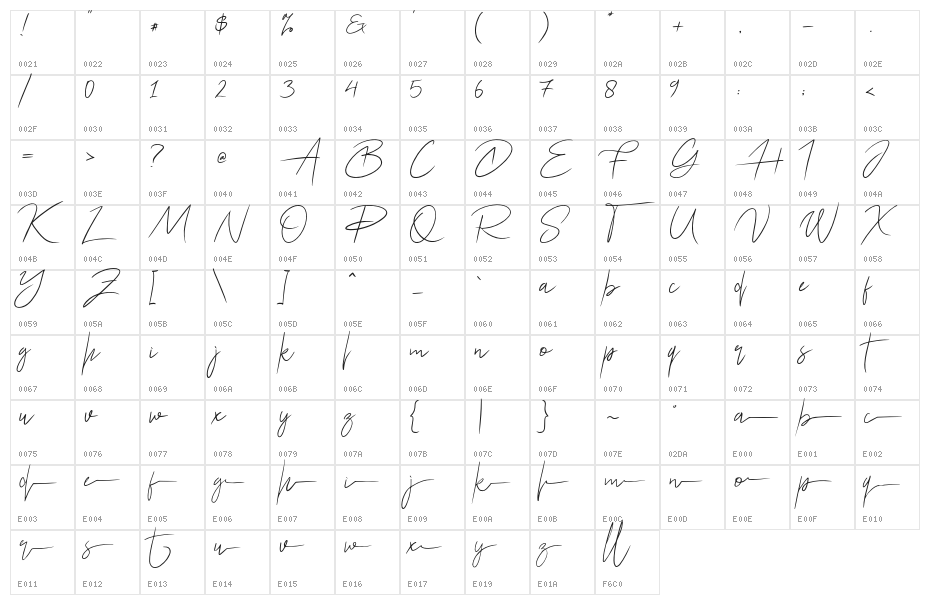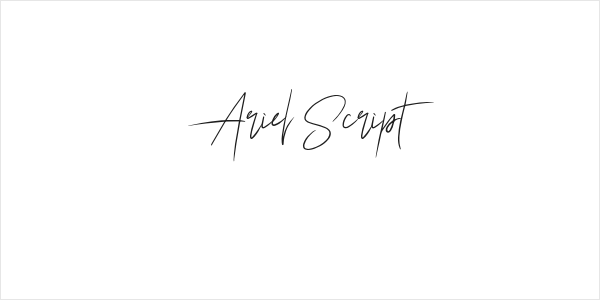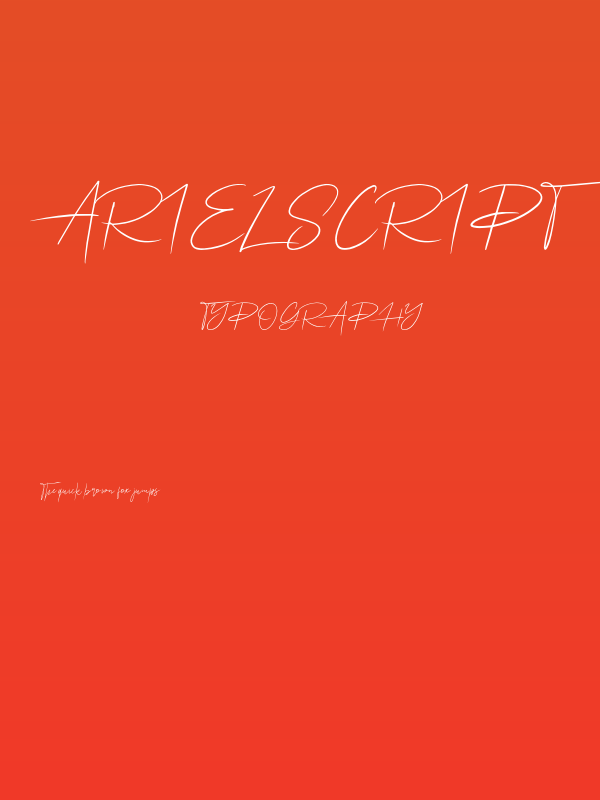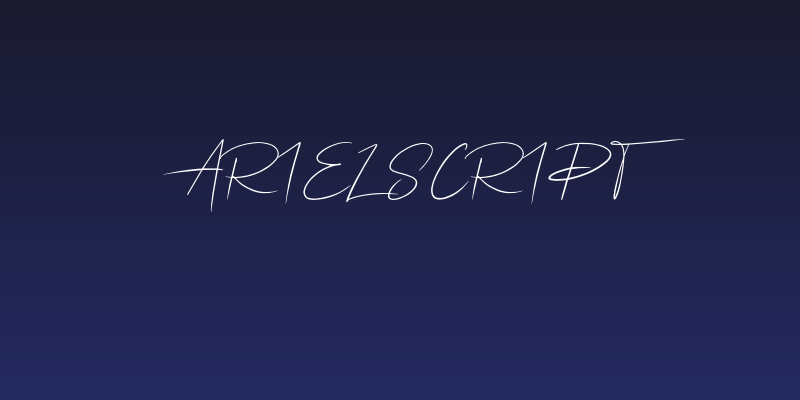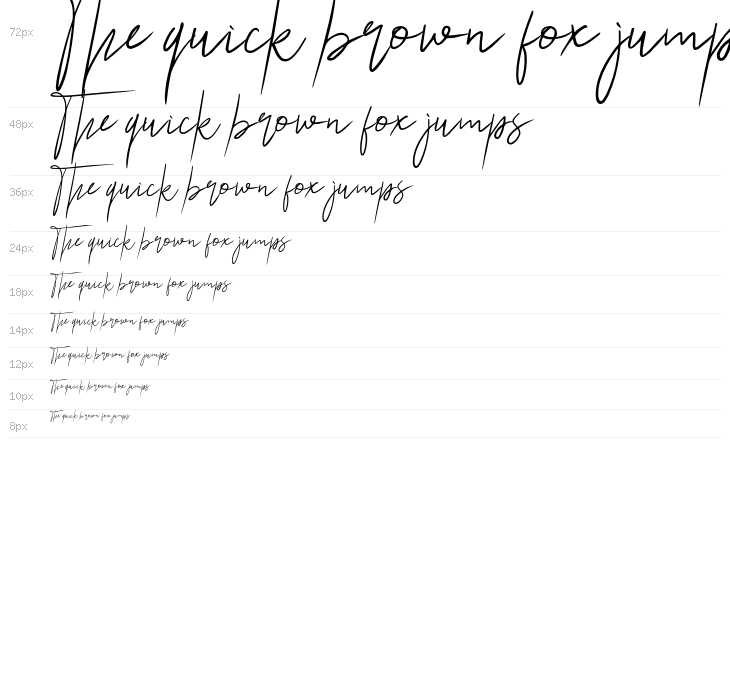
Ariel Script Font
Ariel Script Description
This font features an elegant and flowing script style, characterized by its smooth, cursive strokes that mimic natural handwriting. The uppercase letters are tall and graceful, while the lowercase letters maintain a consistent flow with subtle variations in stroke width. The numerals are distinct and maintain the script's fluidity, adding a touch of sophistication. Special characters are seamlessly integrated, enhancing the font's versatility. Its overall appearance is both stylish and approachable, making it suitable for a variety of design projects.
| Overall Style | Elegant, Handwritten |
| Proposed Projects | Ideal for wedding invitations, greeting cards, branding, and elegant packaging designs. |